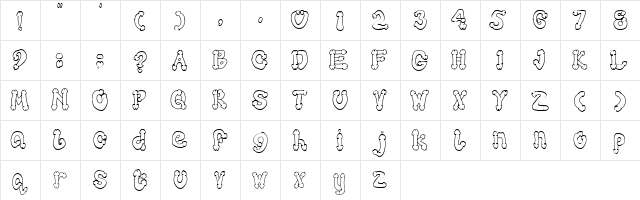
Complete Koksure Regular glyph index. Displaying only characters natively supported by Koksure Regular font.
Koksure is a composed and adaptable typeface that performs quietly and consistently across a wide range of design contexts.